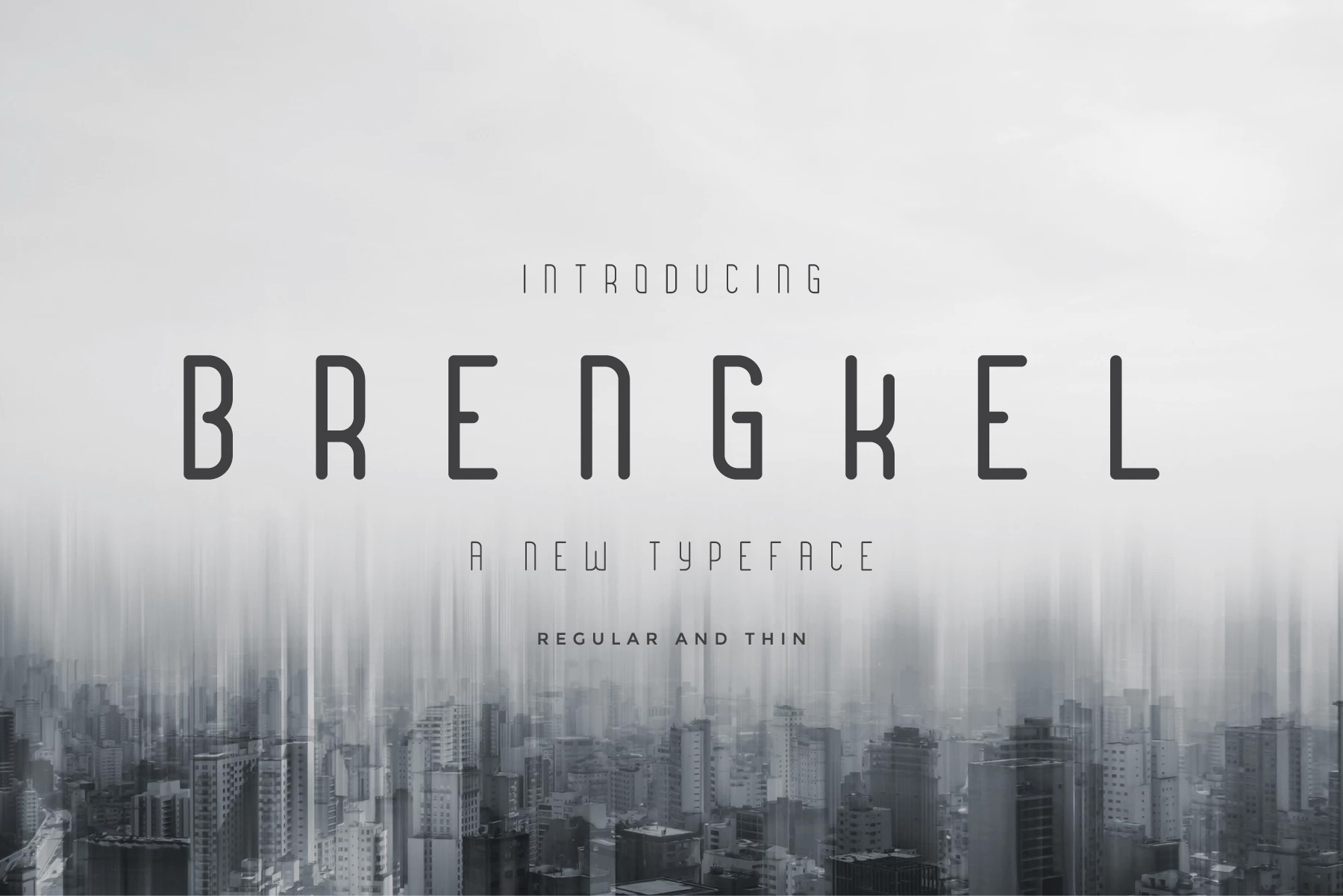
Brengkel - Condensed Font
Hi! introduce Brengkel Font. It's allowing you to create Logo, greeting cards, quotes, posters, branding, stationary, design title, blog header, art quote, typography art, modern envelope lettering or any purpose to make our art/design project look pretty and trendy.
Brengkel Font is suitable to use for any kind of design such as branding projects, logo, wedding designs, social media posts, advertisements, product packaging, product designs, label, photography, watermark, invitation, poster, t-shirt design, stationery and any projects that need handwriting taste.
Brengkel also includes full set of uppercase and lowercase letters, numerals, punctuation, multilingual. It would be perfect for all types of printing techniques, you can do embroidery, laser cut, gold foil, etc.